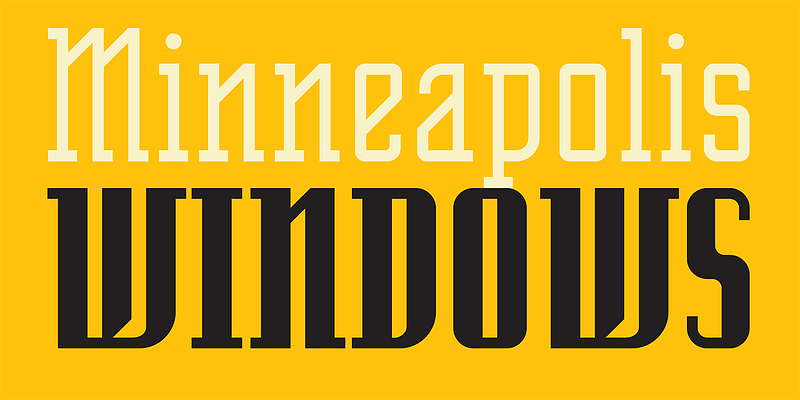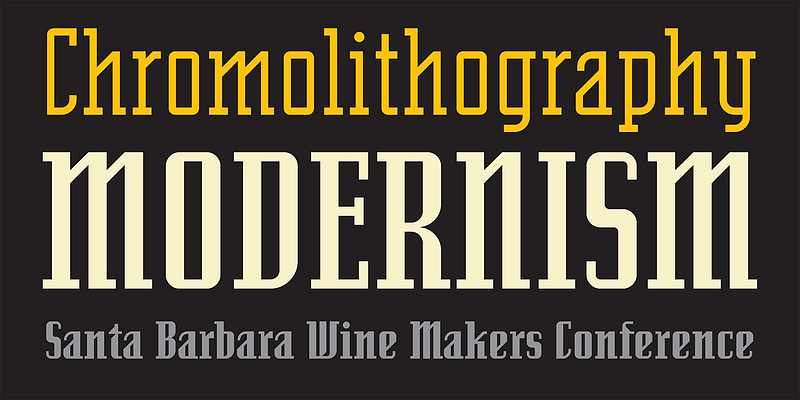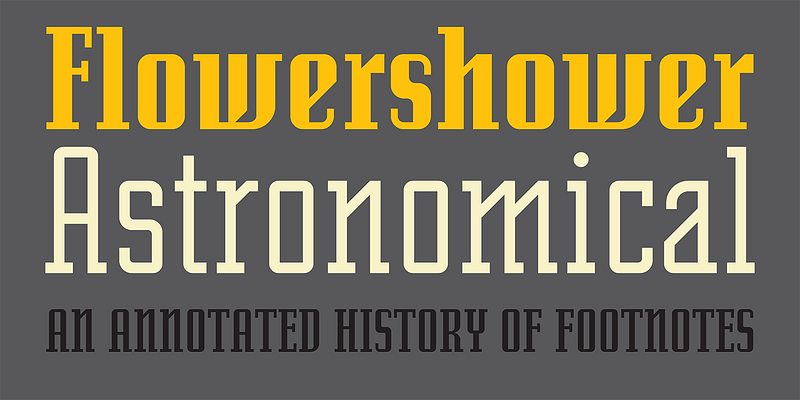
In 1988, the Macintosh computer was still rather crude as far as being able to produce subtle curves, but it was outstanding at producing perfect geometric elements. As a starting point for Senator, Licko used the proportions of her earlier Emigre Fifteen bitmap design (renamed Lo-Res 22 Serif) and applied the precision of the computer’s geometric rendering abilities. The result is a wonderful synthesis of upright sturdiness and elegance perfect for use in headlines and short texts.